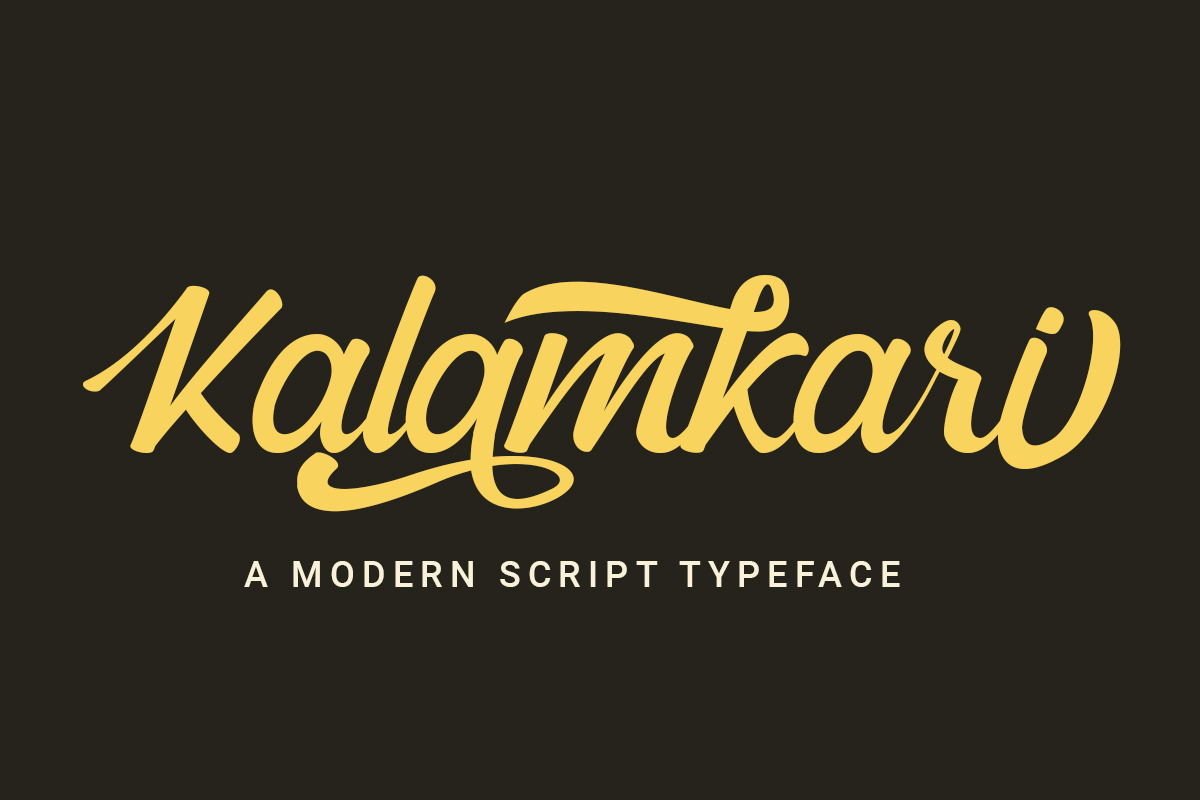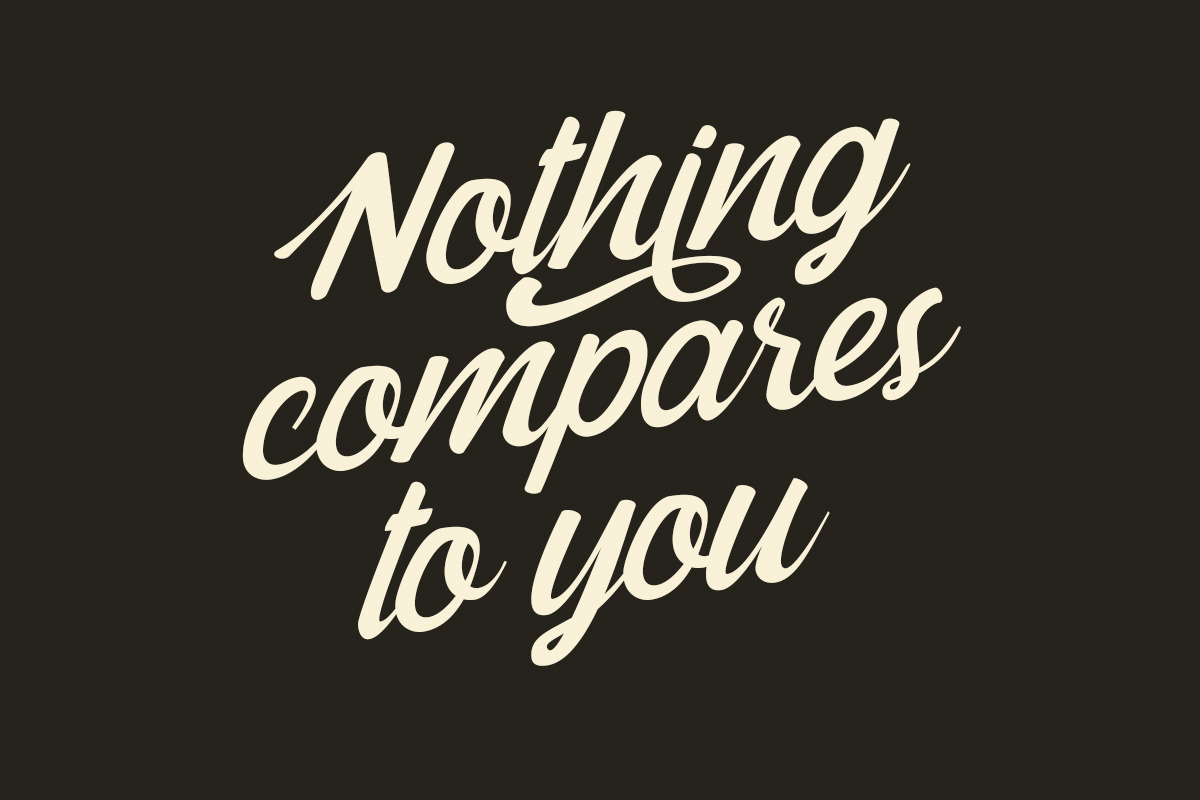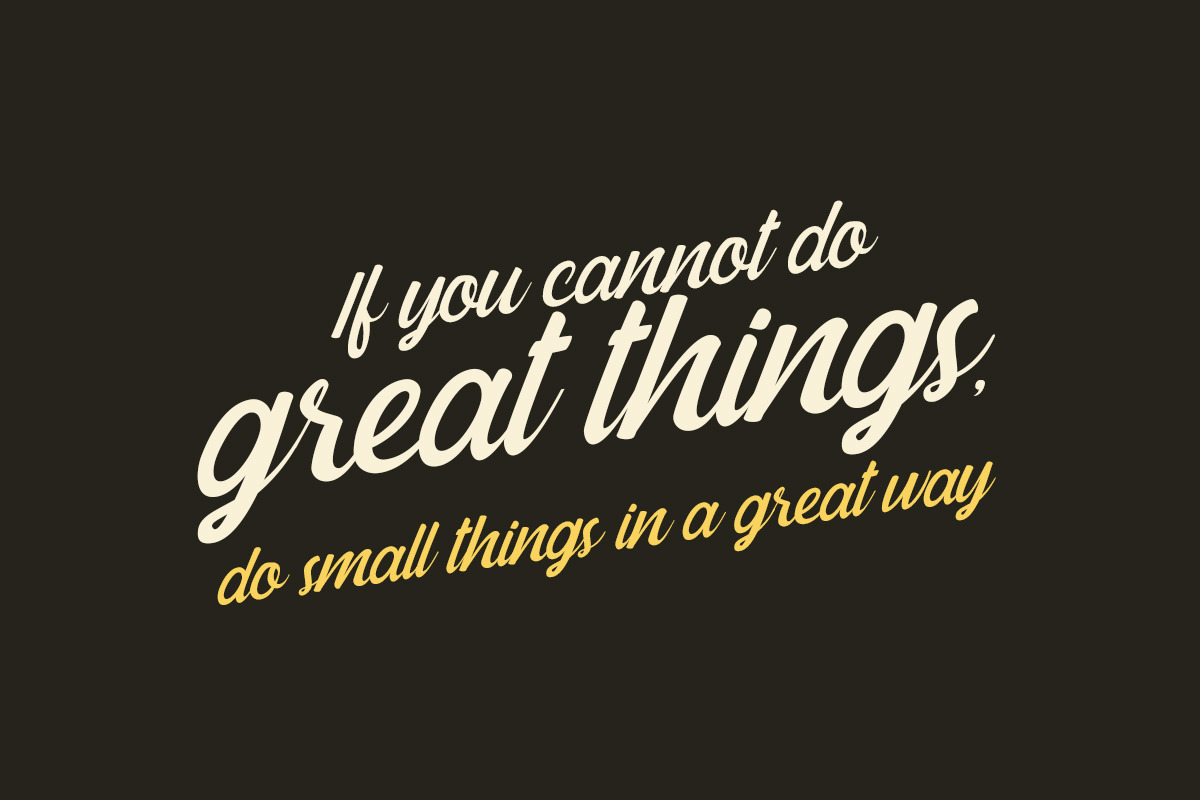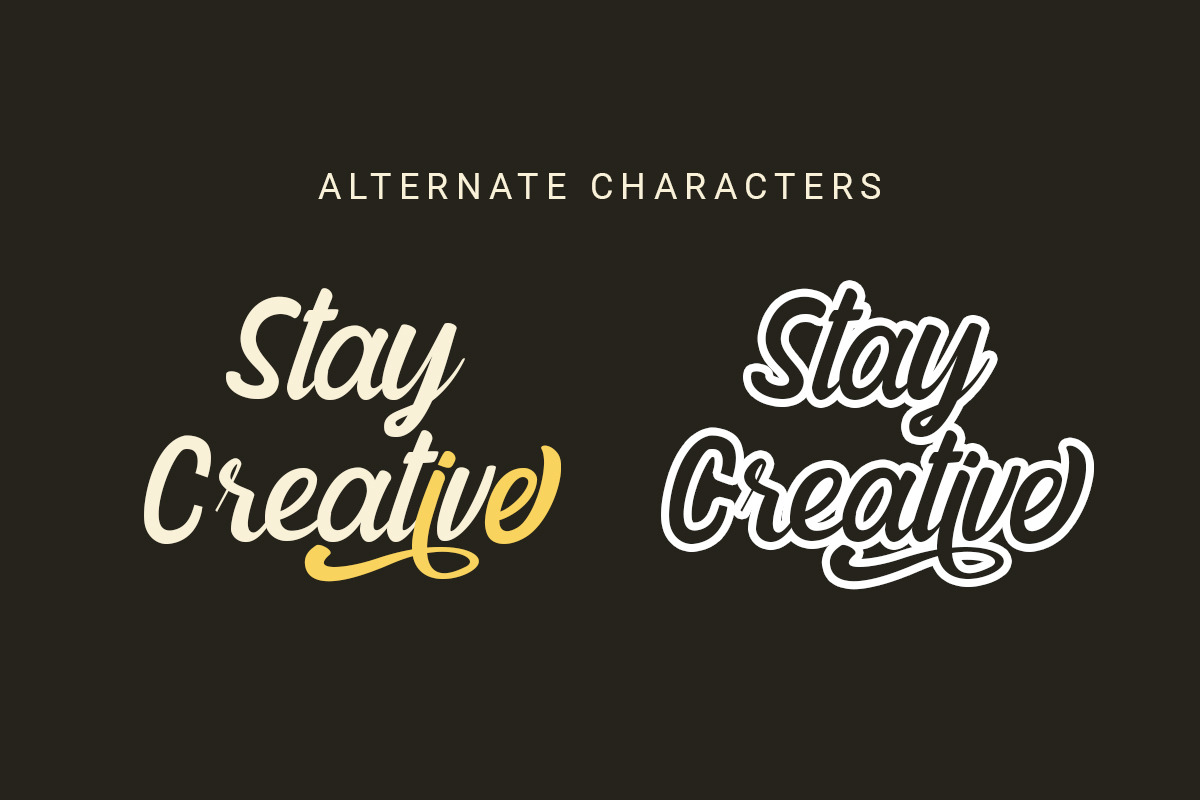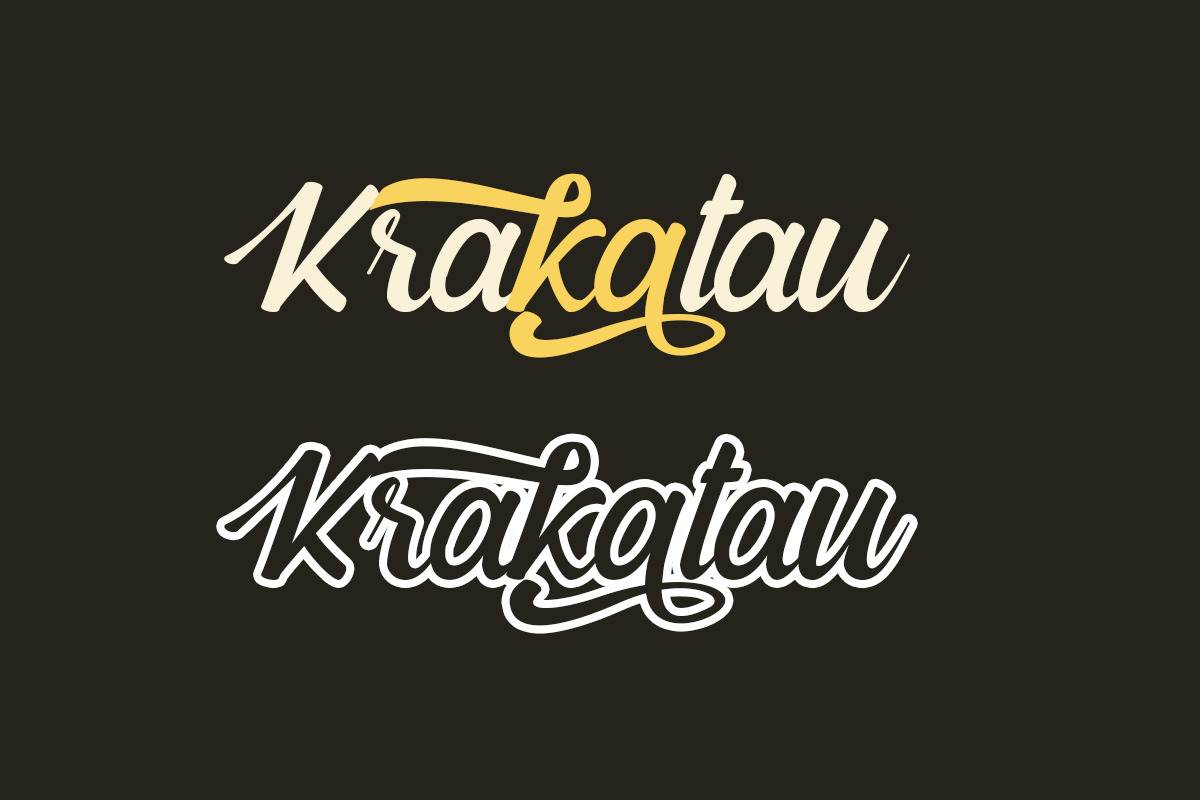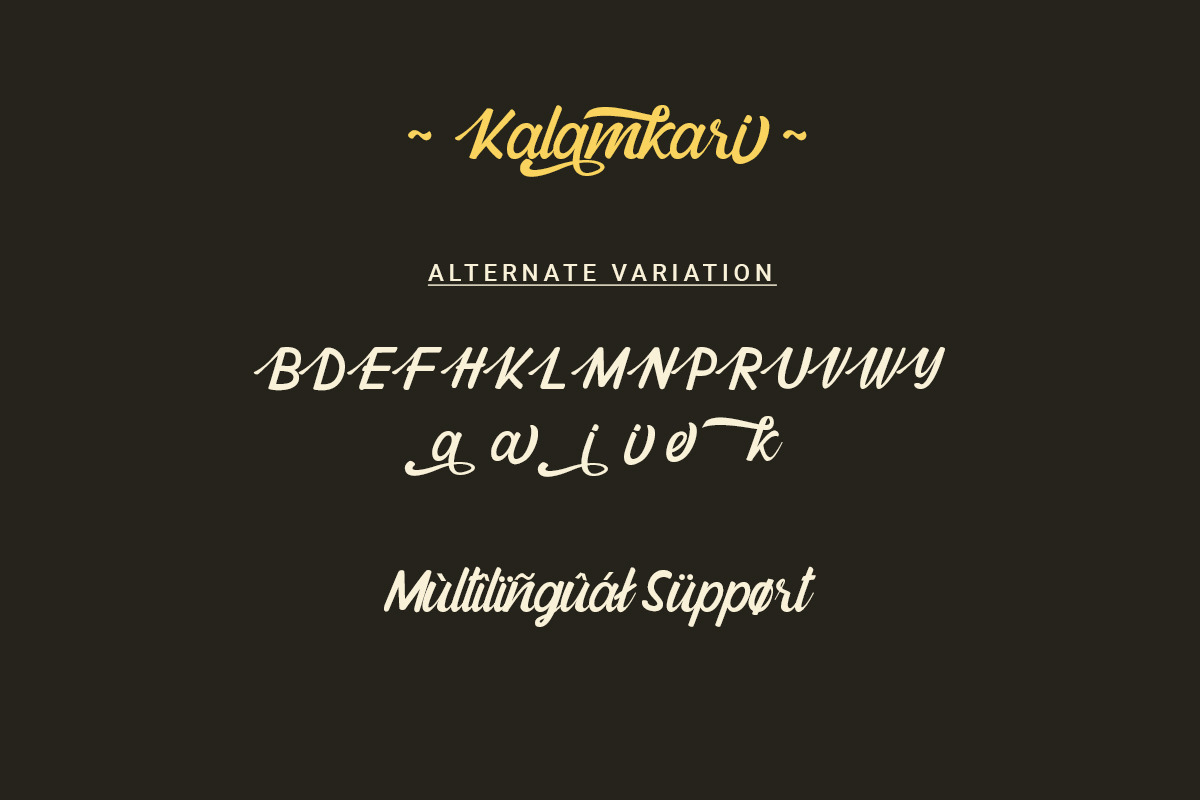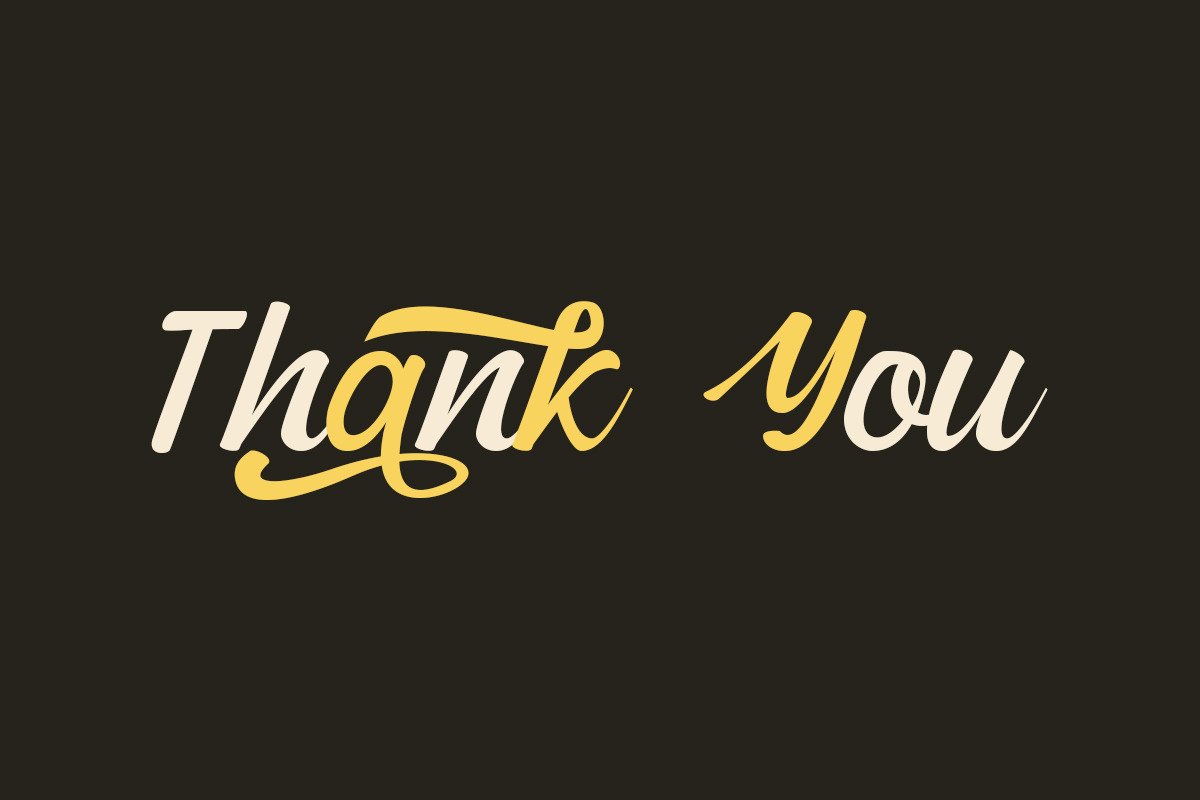
Kalamkari - A Modern Script Typeface
Introducing KALAMKARI - A Modern Script Typeface, created by Ony Studio.
Is a neat script typeface with some stylistic alternatives to choose from. This typeface is perfect for an elegant logo, product labels, beauty products, packaging products, quotes, and so much more.
* All characters, Number, Punctuation
* Stylistic alternative
* Multilingual support